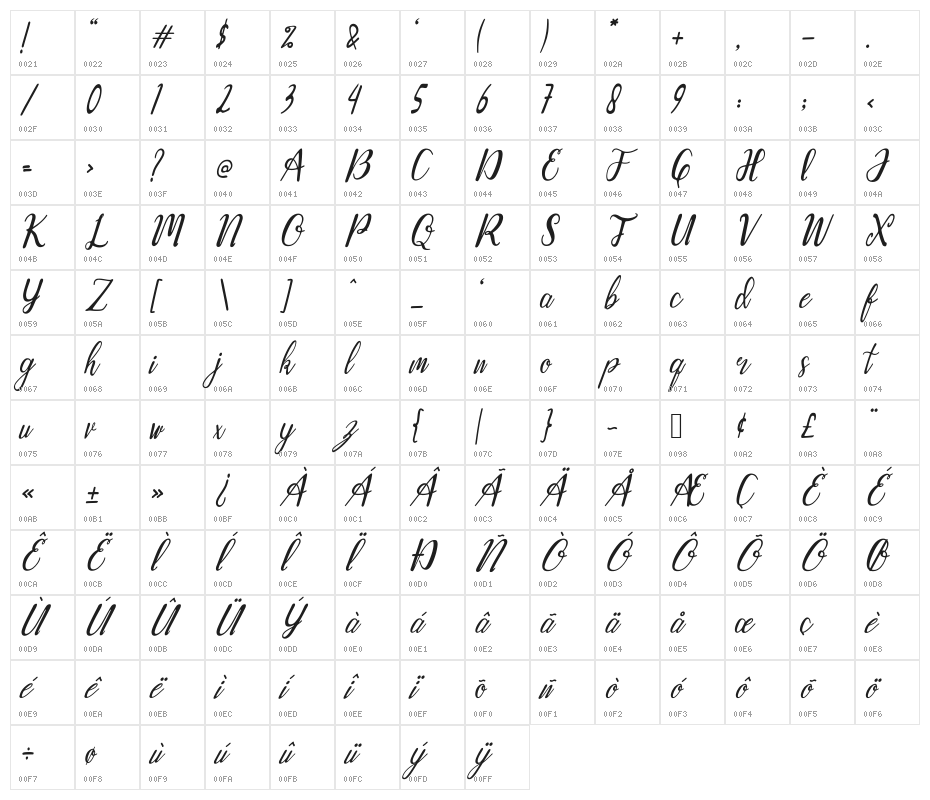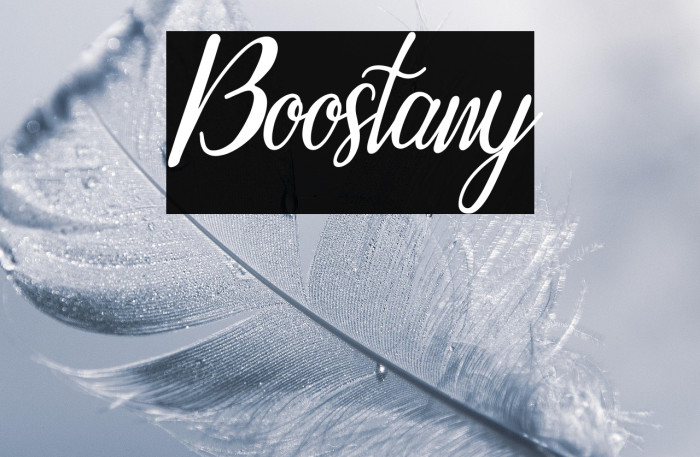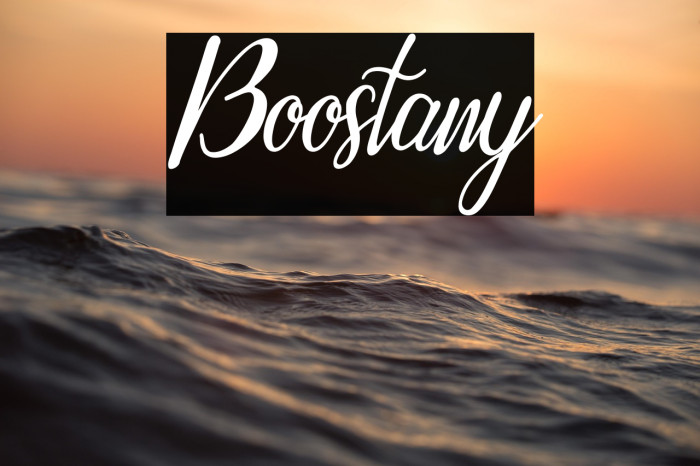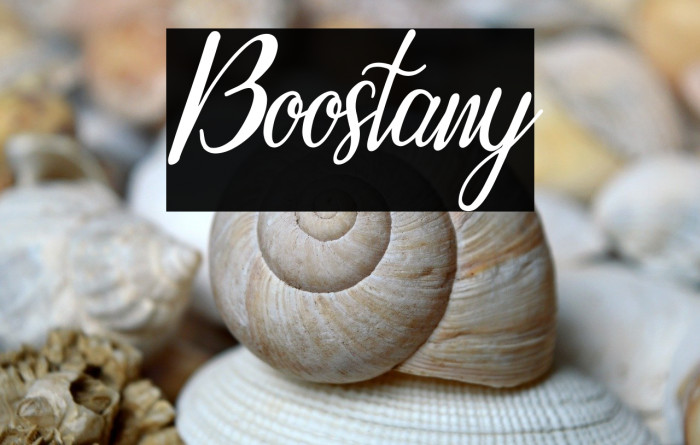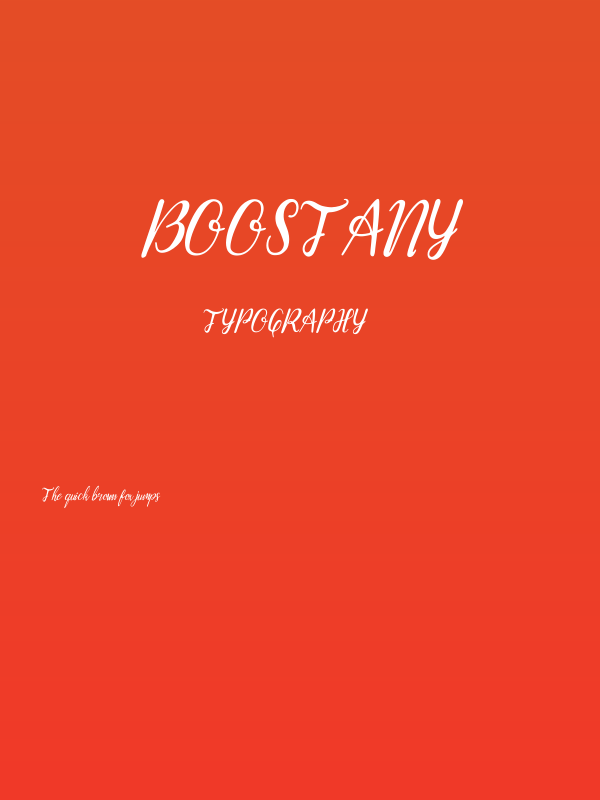
Boostany Font
Boostany Description
This font exhibits a dynamic and flowing script style, characterized by its elegant and cursive letterforms. The uppercase letters are bold and sweeping, with a distinct slant that adds a sense of movement and grace. The lowercase letters maintain a consistent flow, with smooth connections between characters, enhancing its handwritten appeal. The numerals are stylish and maintain the script's fluidity, while the special characters are crafted to match the overall aesthetic, ensuring a cohesive look. This font's design is both sophisticated and approachable, making it suitable for a variety of creative applications.